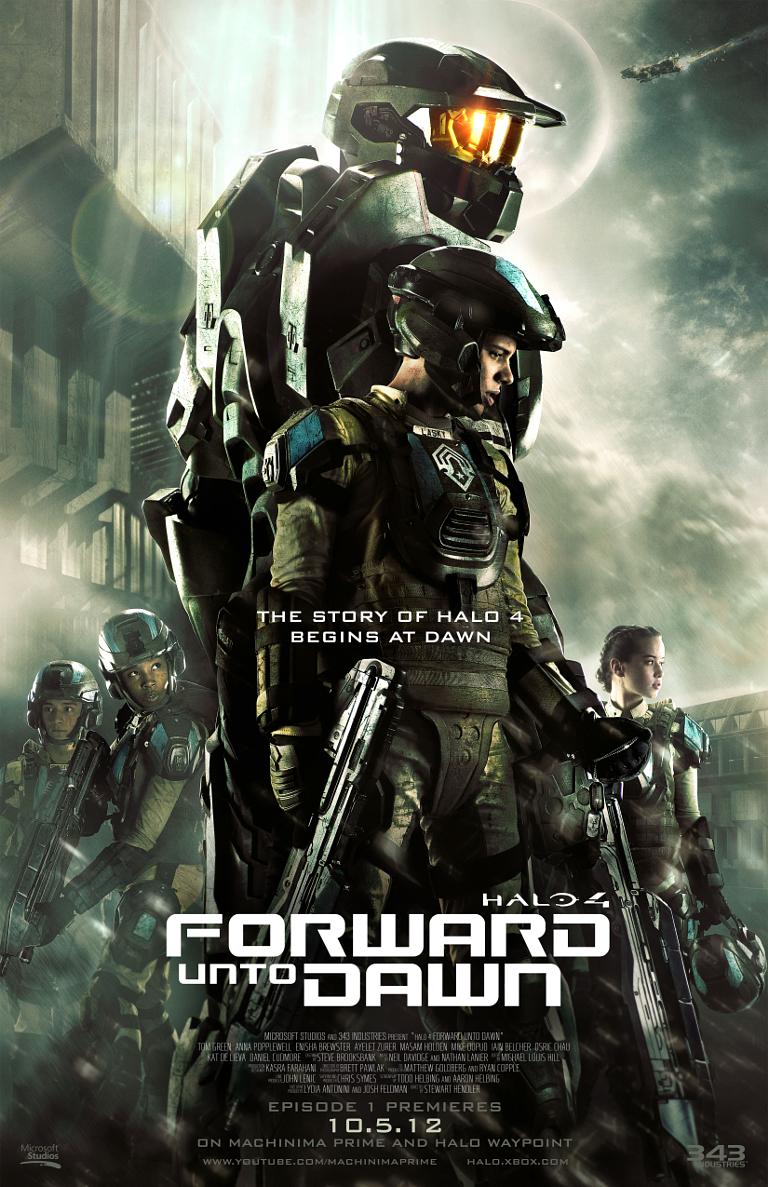
Forward Unto Dawn Font
Fonts in UseHalo 4: Forward Unto Dawn is a live-action web series set in the Halo universe that follows the journey of a young cadet as he faces the threat of the Covenant and discovers the hero within himself.